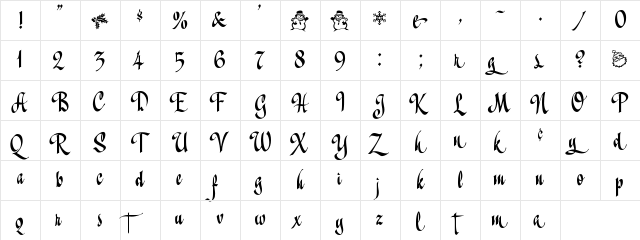
A&S Christmas Script Regular
| Foundry | SIGNFONTS-Art&Sign studio |
| Designer | Steve Contreras |
Design Context for A&S Christmas Script Typeface
A&S Christmas Script brings a calligraphic fluidity to the page — its connecting strokes and expressive curves give it an unmistakably human quality.
Font Pairing: Combine A&S Christmas Script with a simple geometric sans for maximum contrast — the tension between flowing curves and clean structure is a classic typographic pairing.
Pro Tip: Use A&S Christmas Script for short runs of text — names, titles, or taglines. Extended body copy in script faces tires the eye quickly.